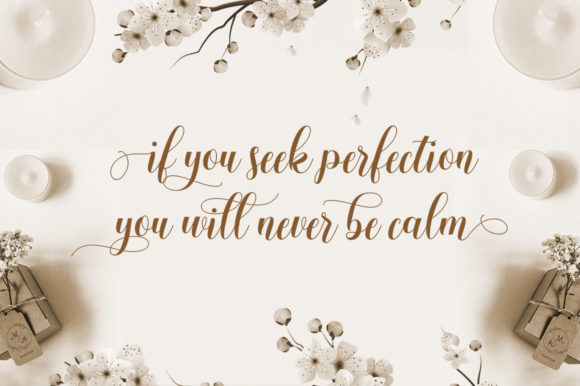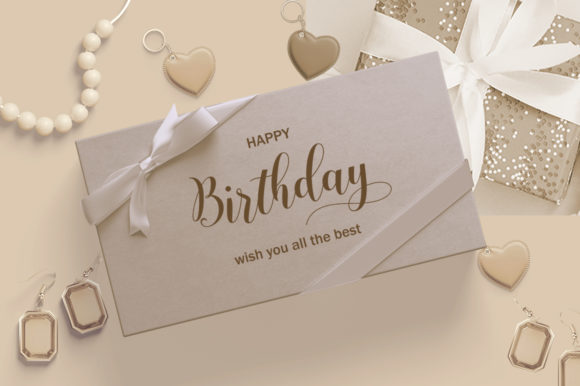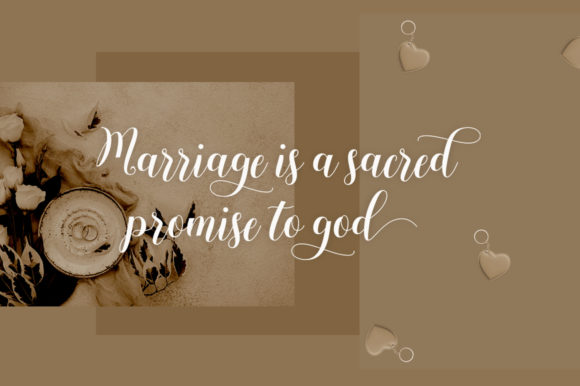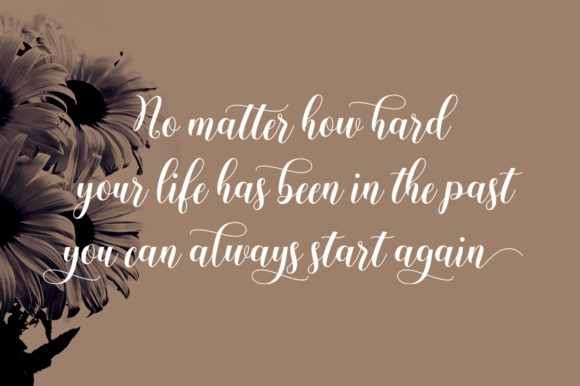
About Andesia Font
Andesia is a captivating and unique handwritten font that exudes elegance and charm. With its delicate strokes and varying baseline, Andesia adds a touch of sophistication and artistry to any design project. This versatile font is perfect for expressing creativity and creating eye-catching visual elements that leave a lasting impression.
The smooth lines and exquisite glyphs of Andesia make it a wonderful choice for a wide range of designs. From elegant wedding invitations to modern branding, this font adds a touch of personality and character to every project. Its distinct style sets it apart from other fonts, making it a standout choice for those seeking to create something truly special.
The PUA encoding of Andesia allows for easy access to a variety of glyphs and swashes, opening up a world of creative possibilities. You can add flourishes, decorative elements, and alternate characters to customize and enhance your designs, ensuring they truly reflect your unique vision.
In the realm of wedding invitations, Andesia shines with its romantic and timeless appeal. Its delicate letterforms create an air of sophistication and elegance, setting the perfect mood for a memorable celebration of love. Whether used for traditional or contemporary wedding designs, Andesia adds a touch of magic and charm to the occasion, leaving a lasting impression on couples and guests alike.
Andesia’s versatility extends beyond wedding invitations. Its graceful and flowing lines make it suitable for a variety of projects, including greeting cards, logos, posters, and social media graphics. The font’s ability to adapt to different styles and themes makes it a valuable asset for designers and creatives alike.
For branding and logo design, Andesia brings a touch of uniqueness and artistry to any business or project. Its handwritten charm creates a friendly and approachable identity, making it ideal for businesses that want to establish a warm and welcoming presence.
In conclusion, Andesia is a delicate and distinct handwritten font that adds elegance and charm to any design. With its varying baseline, smooth lines, gorgeous glyphs, and stunning alternates, it offers endless creative possibilities. From wedding invitations to branding and beyond, Andesia’s versatility and unique style make it a standout choice for designers seeking to create spectacular and memorable designs. Fall in love with Andesia’s artistic flair and let it elevate your creative projects to new heights, leaving a lasting impression on all who encounter its beauty.